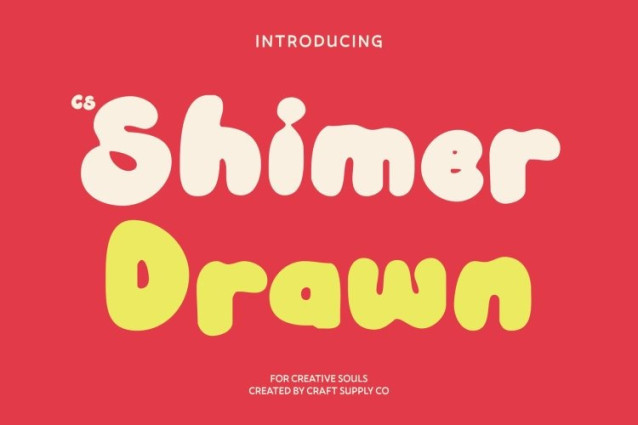
CS Shimer Drawn Font
CS Shimer Drawn Font This is a children’s display font that radiates joy and playful charm. Its bold, rounded bubble forms carry a lively hand-drawn texture, giving each letter a soft, approachable feel. The drawn effect adds a whimsical touch, making the typeface feel energetic, fun, and full of character.
Funky and Cute with Expressive Energy
The quirky curves and animated details of this font enhance its playful spirit. Each letter seems to bounce and dance across the page, creating a dynamic rhythm that sparks excitement. The artistic texture ensures that every word feels handcrafted, youthful, and visually engaging.
Perfect for Children’s Projects and Imaginative Design
From storybooks and educational materials to kid-friendly packaging and playful logos, this font excels in designs that need warmth, safety, and creativity. Its hand-drawn bubble shapes make even simple text feel lively, approachable, and full of wonder.
Ideal for Books, Posters, and Playful Branding
This font adds a bold and cheerful presence to book titles, posters, branding, and interactive campaigns. Its vibrant hand-drawn forms ensure words pop with personality, helping your designs stand out with charm, fun, and unforgettable visual energy.